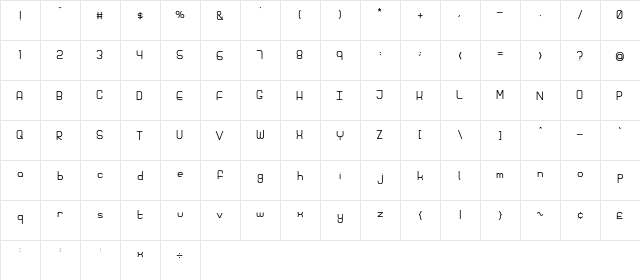
Bolula regular
Design Context for Bolula Typeface
Bolula is a composed and adaptable typeface that performs quietly and consistently across a wide range of design contexts.